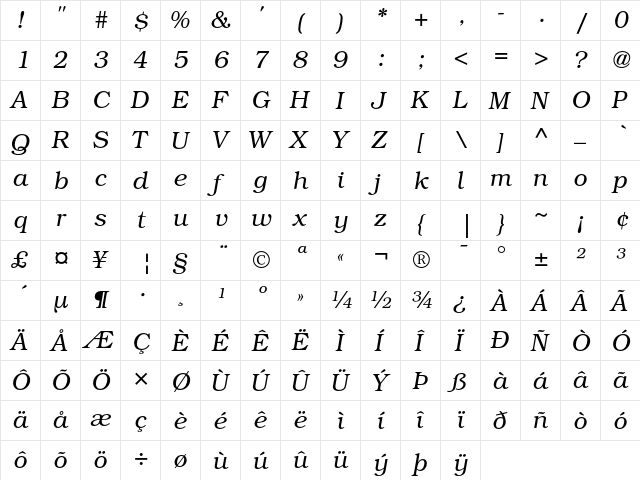
ITC Bookman Light Italic
Design Context for ITC Bookman Typeface
ITC Bookman is a composed and adaptable typeface that performs quietly and consistently across a wide range of design contexts. The slanted form adds forward momentum and visual energy. The delicate stroke weight brings airiness and refinement to layouts.
Pro Tip: Use ITC Bookman for emphasis, pull quotes, and subheadings where its slanted energy can add rhythm to the layout.